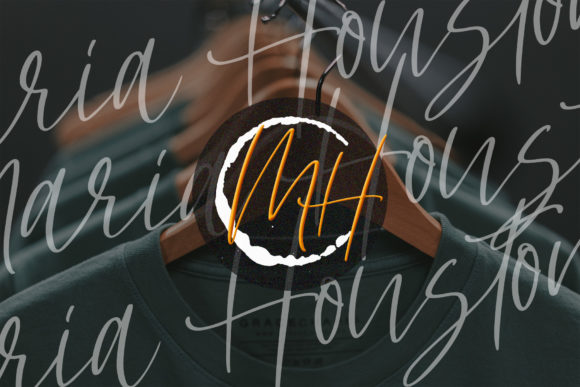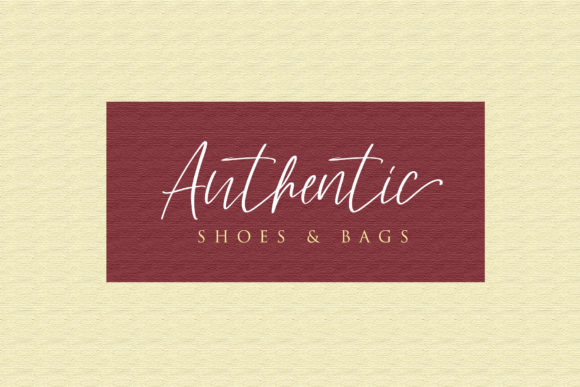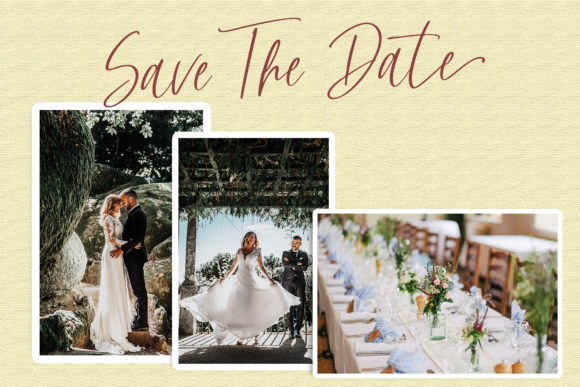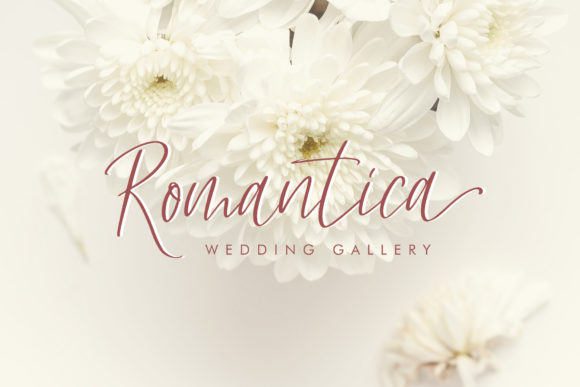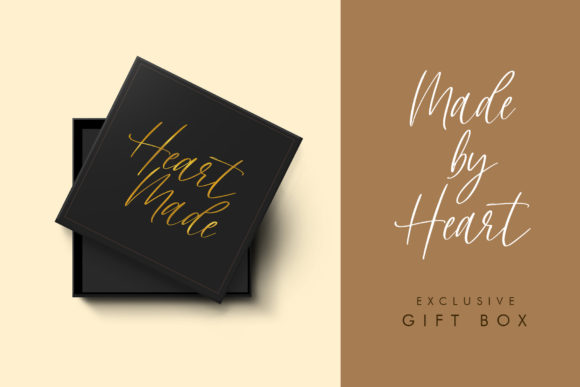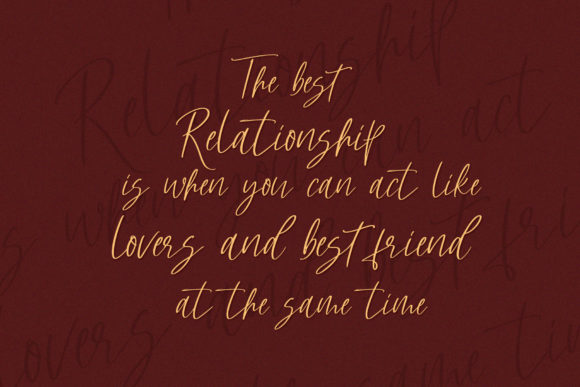
Hellena Font: The Elegant and Charming Handwritten Font
Hellena Font is a stunning, organic, and smooth handwritten font that has captured the hearts of designers and crafters alike. This gorgeous dancing font is carefully crafted from real handwriting, making it a unique and charming addition to any design project. In this article, we’ll dive into the world of Hellena Font, exploring its features, benefits, and uses, and why it’s a must-have for anyone looking to add a touch of elegance to their designs.
The Story Behind Hellena Font
Hellena Font is a labor of love, carefully crafted to bring a touch of warmth and personality to any design. The font is created from real handwriting, making it a truly organic and authentic addition to any project. The attention to detail and care that goes into creating Hellena Font is evident in its smooth, flowing lines and elegant curves. Whether you’re a designer, crafter, or DIY enthusiast, Hellena Font is sure to captivate your audience with its unique charm.
Key Features of Hellena Font
- Organic and Smooth: Hellena Font features smooth, flowing lines that give it a natural and effortless look.
- Handwritten from Real Handwriting: The font is carefully crafted from real handwriting, making it a unique and authentic addition to any design.
- Gorgeous Dancing Font: Hellena Font has a playful, dancing quality that adds a touch of whimsy and elegance to any design.
- Unique Charm: The font’s distinctive character and charm make it perfect for designs that require a personal touch.
Benefits of Using Hellena Font
Hellena Font offers a range of benefits for designers and crafters, including:
- Emotional Connection: The font’s organic and handwritten nature creates an emotional connection with the audience, making it perfect for designs that require a personal touch.
- Versatility: Hellena Font is versatile and can be used in a range of design projects, from invitations and greeting cards to branding and packaging.
- Elegance and Sophistication: The font’s elegant curves and smooth lines add a touch of sophistication and elegance to any design.
- Easy to Read: Hellena Font is clear and easy to read, making it perfect for designs that require a high level of legibility.
Uses of Hellena Font
Hellena Font is a versatile font that can be used in a range of design projects, including:
- Invitations and Greeting Cards: The font’s elegant and sophisticated nature makes it perfect for formal and informal invitations and greeting cards.
- Branding and Packaging: Hellena Font can be used to add a touch of elegance and sophistication to branding and packaging designs.
- Digital and Print Designs: The font is suitable for both digital and print designs, including social media graphics, blog posts, and magazine articles.
- Crafting and DIY Projects: Hellena Font is a great addition to any crafting or DIY project, from handmade cards to personalized gifts.
Tips for Using Hellena Font
To get the most out of Hellena Font, here are a few tips to keep in mind:
- Pair with Other Fonts: Hellena Font pairs well with other fonts, including serif and sans-serif fonts.
- Experiment with Colors: The font looks great in a range of colors, from bold and bright to soft and pastel.
- Use for Headings and Titles: Hellena Font is perfect for headings and titles, adding a touch of elegance and sophistication to any design.
Hellena Font is a stunning, organic, and smooth handwritten font that is sure to captivate designers and crafters alike. With its unique charm, elegant curves, and smooth lines, it’s the perfect addition to any design project. Whether you’re looking to add a touch of elegance to your designs or create a personal and emotional connection with your audience, Hellena Font is a must-have font that is sure to deliver.